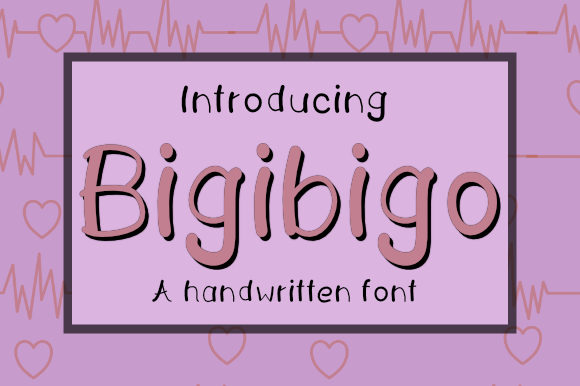
Bigibigo Font
About Bigibigo Font
The Bigibigo is a fully handwritten font. It has a great readability with a fun touch and can be used for various designs.